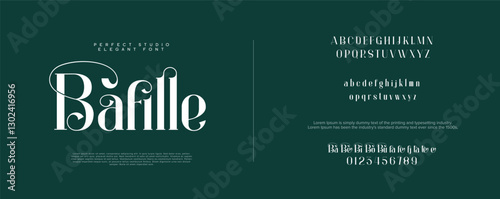
Elegant luxury alphabet letters font. Classic Lettering Minimal Modern Fashion Designs. Typography modern serif fonts regular decorative vintage concept. vector illustration